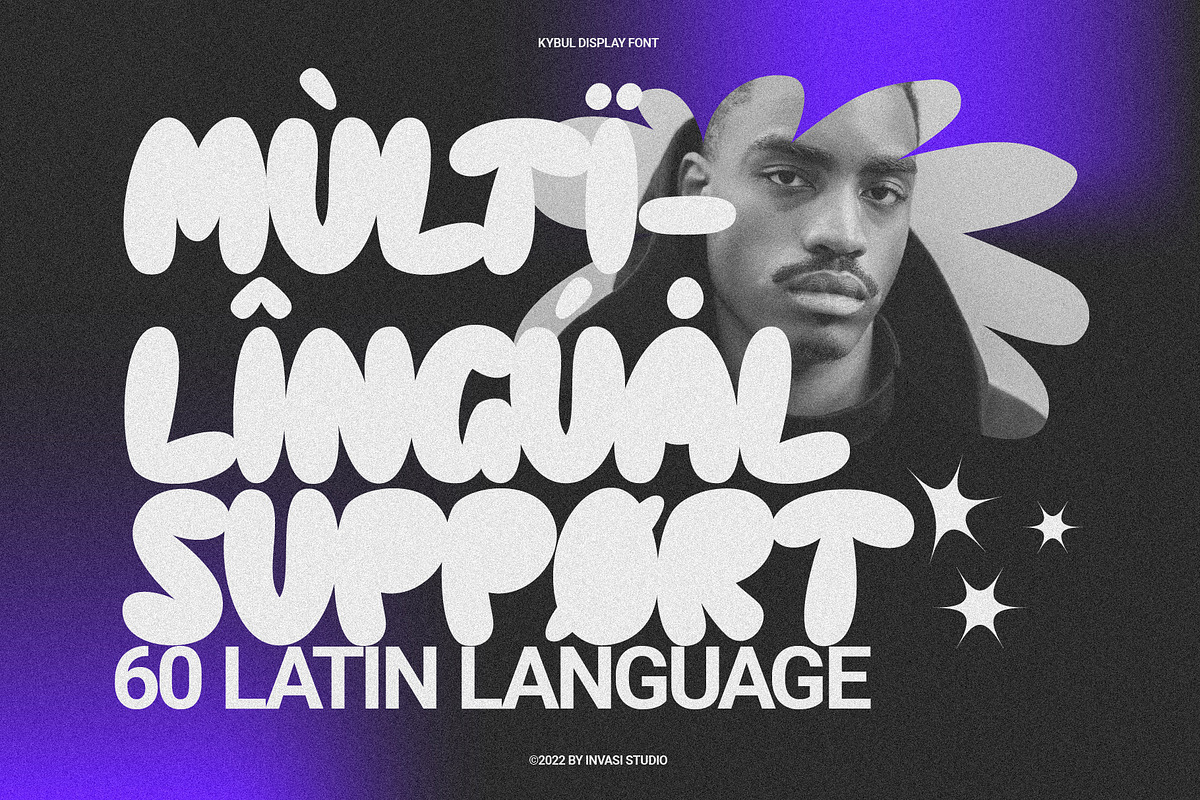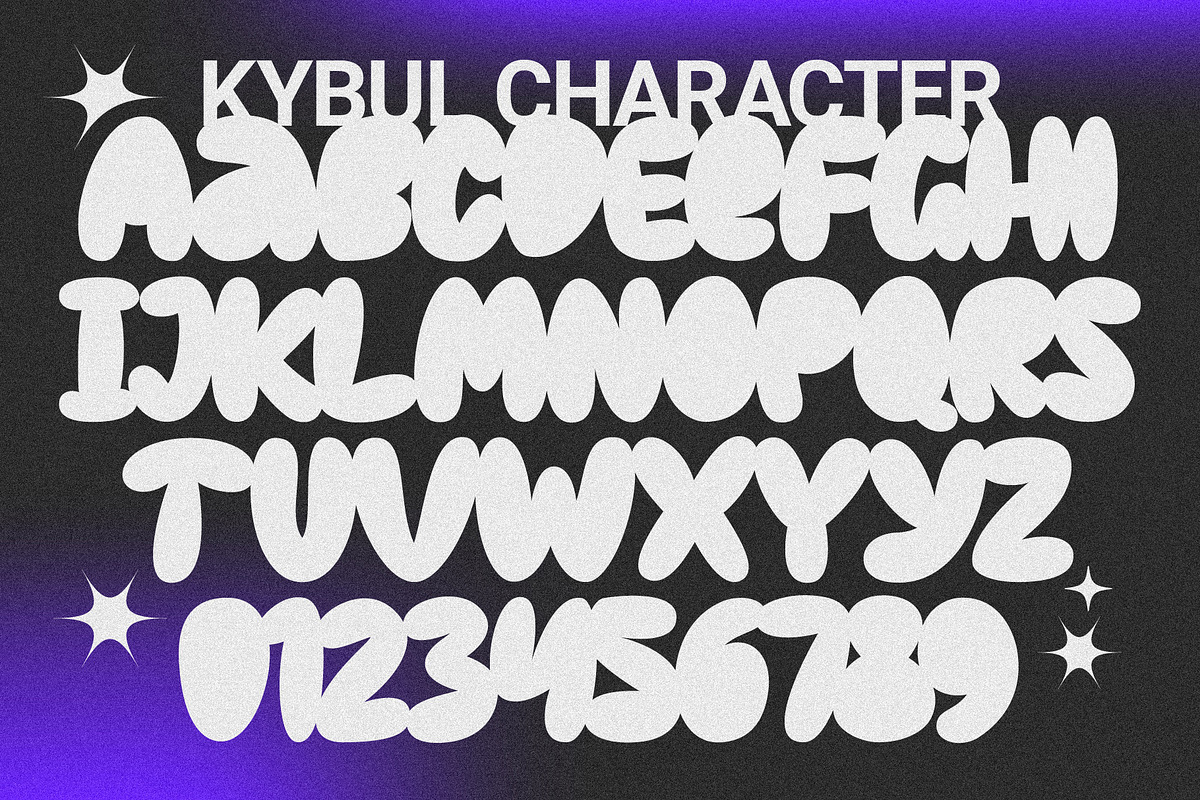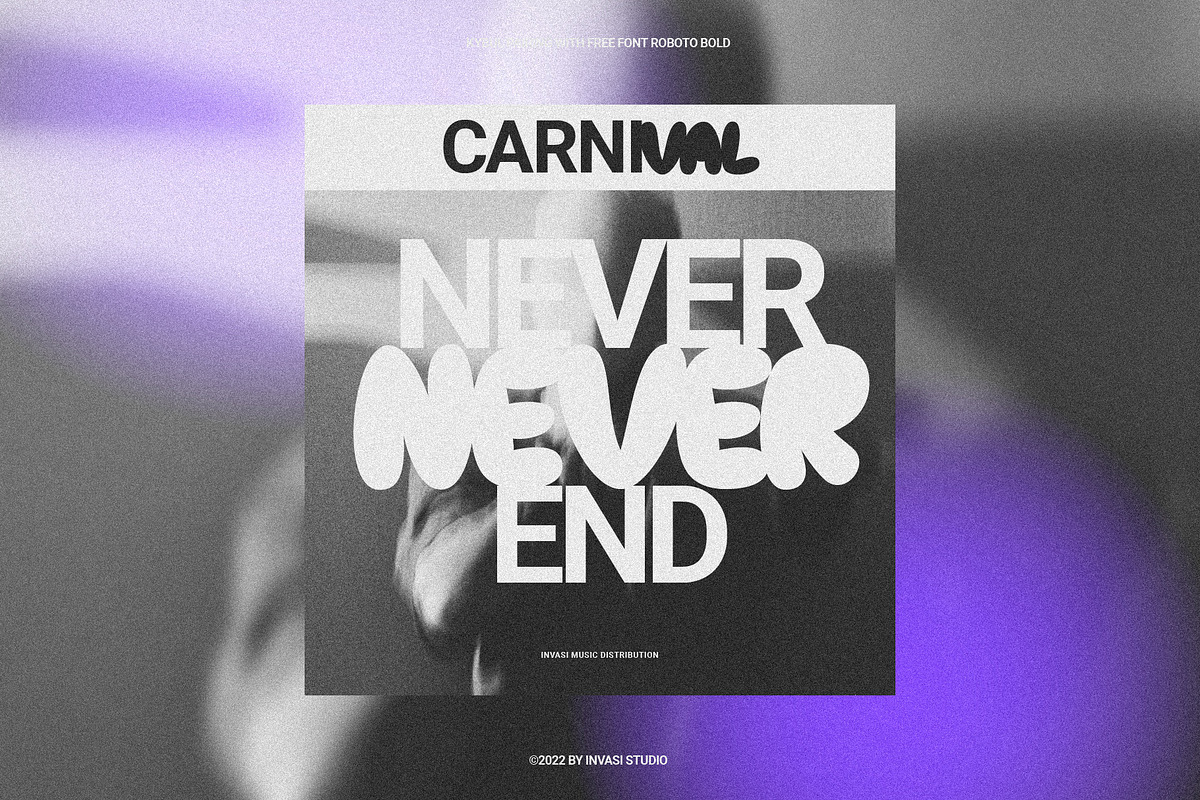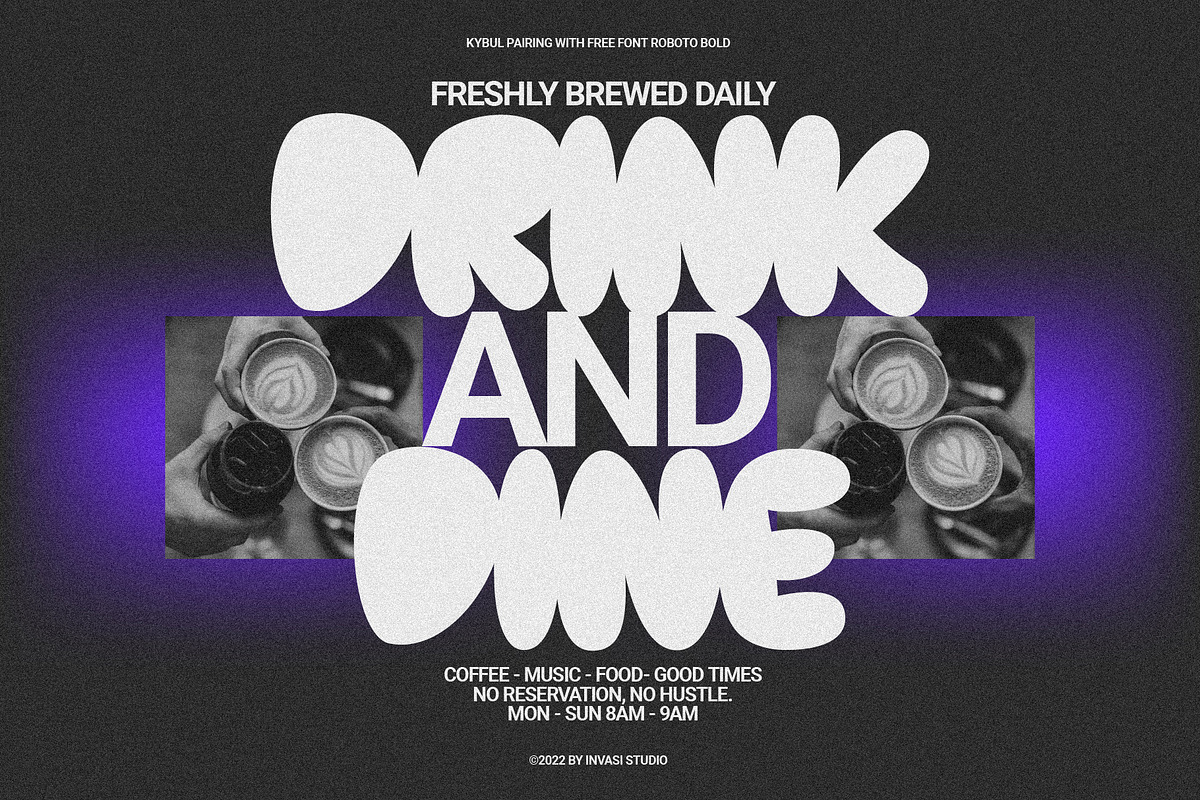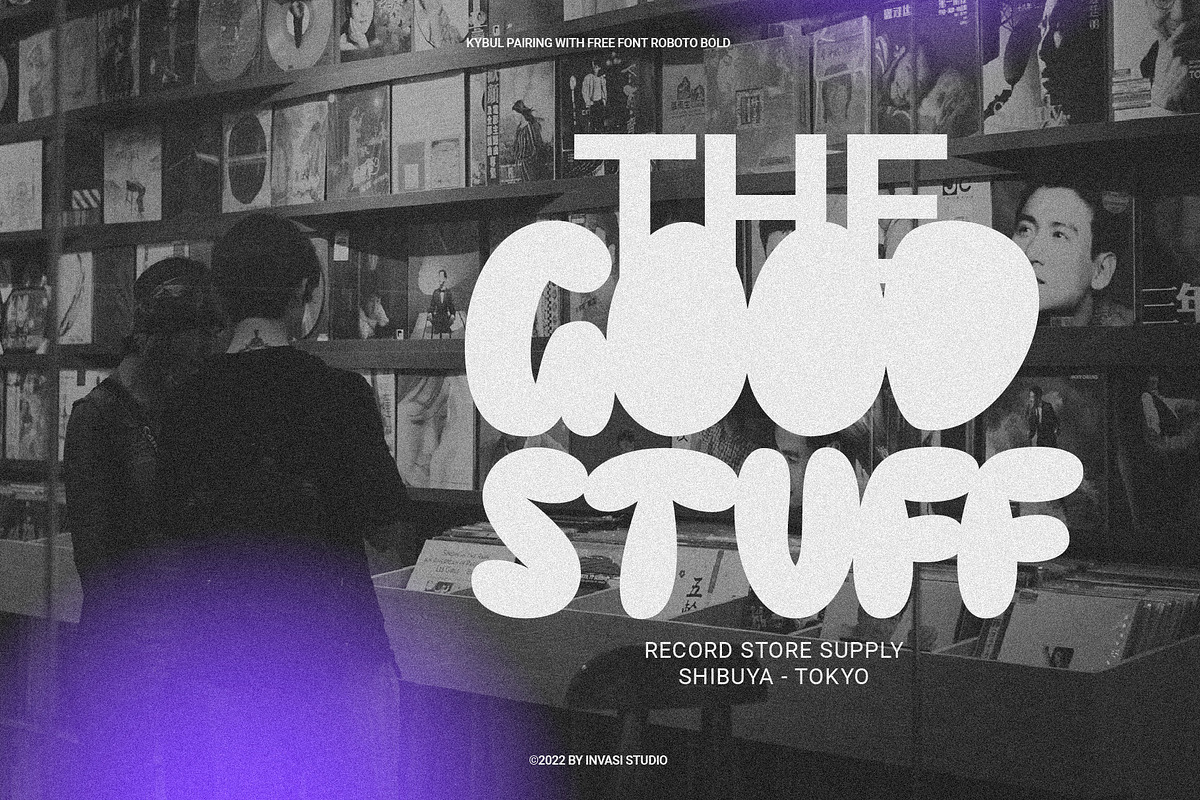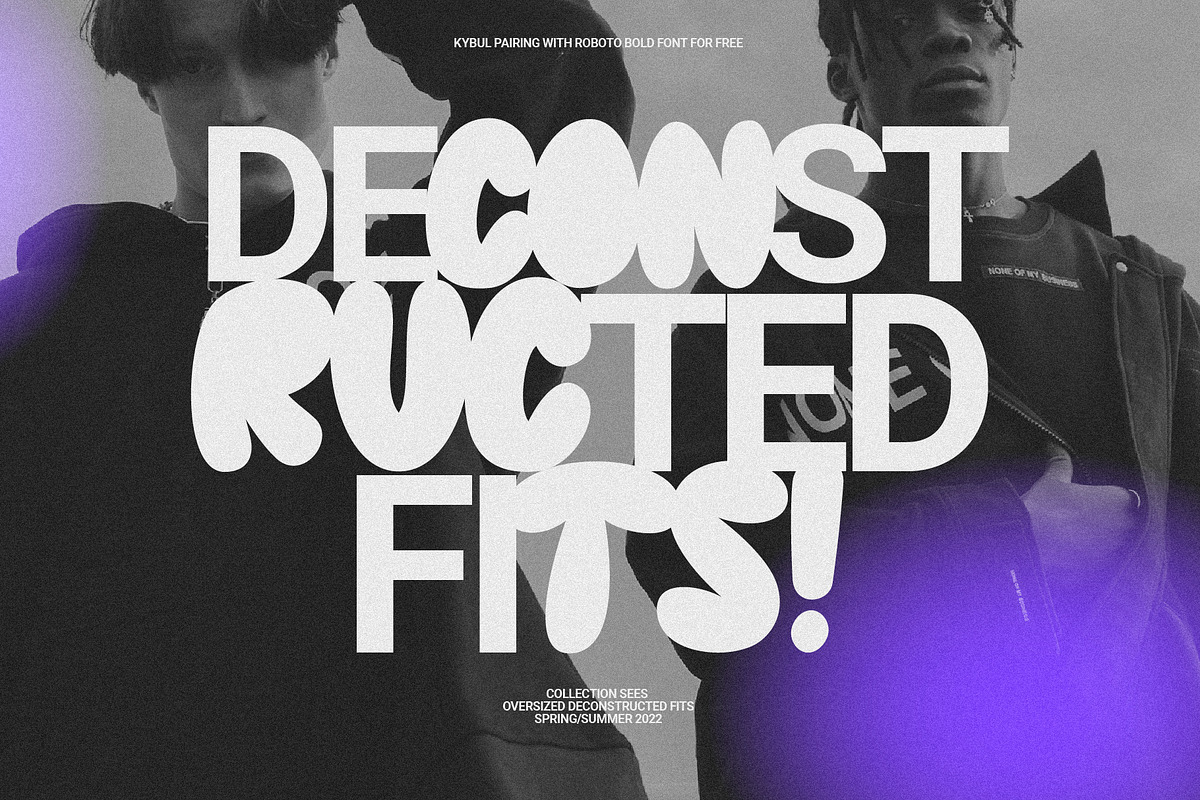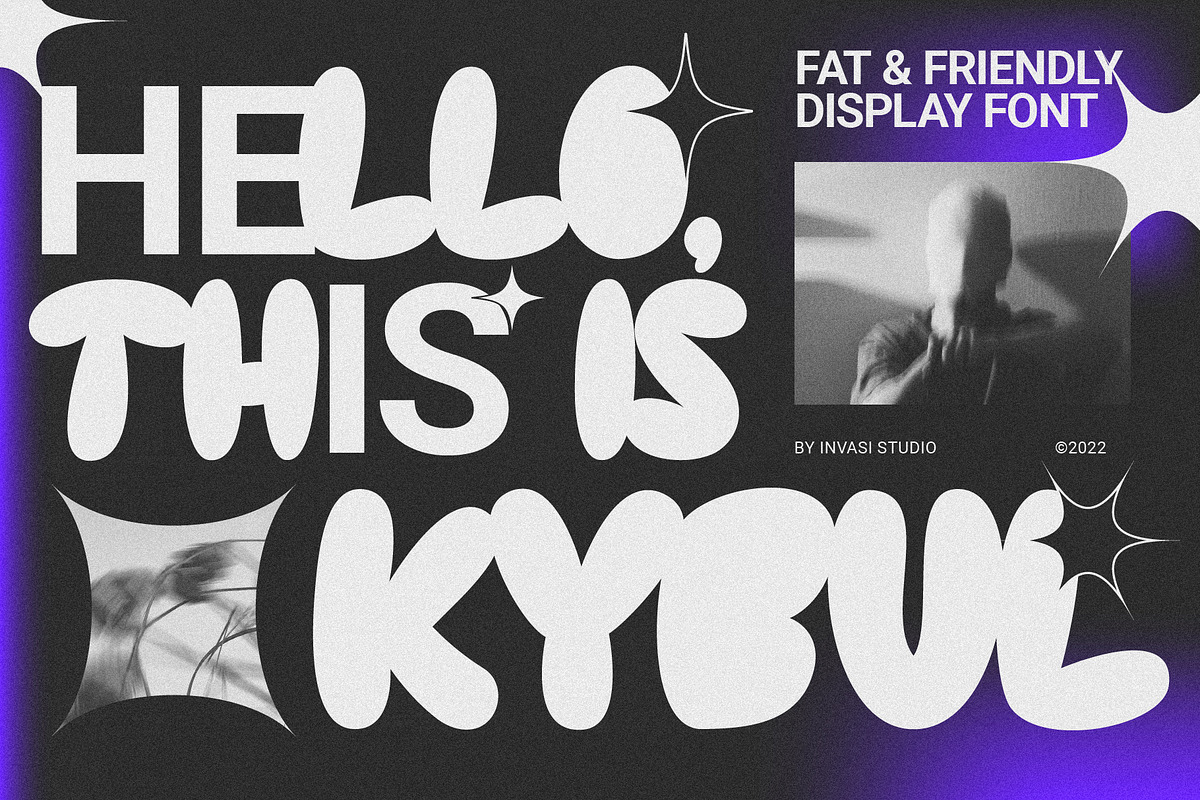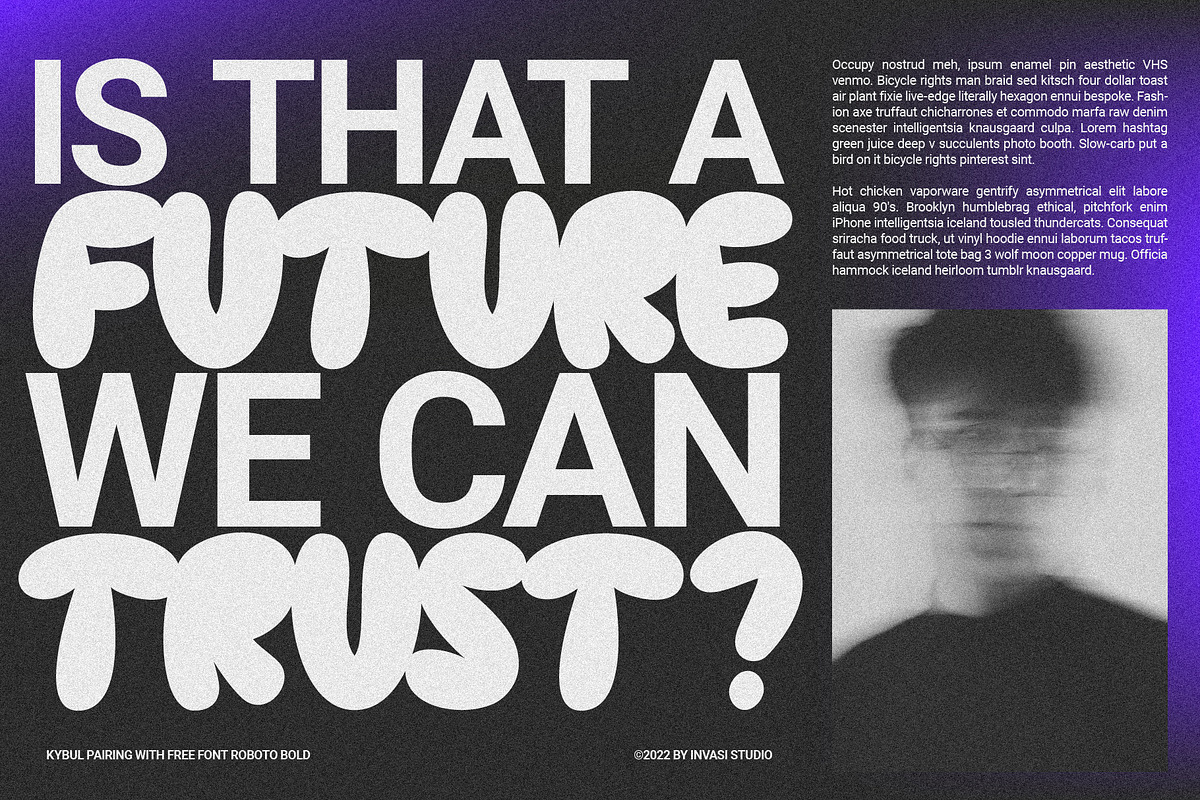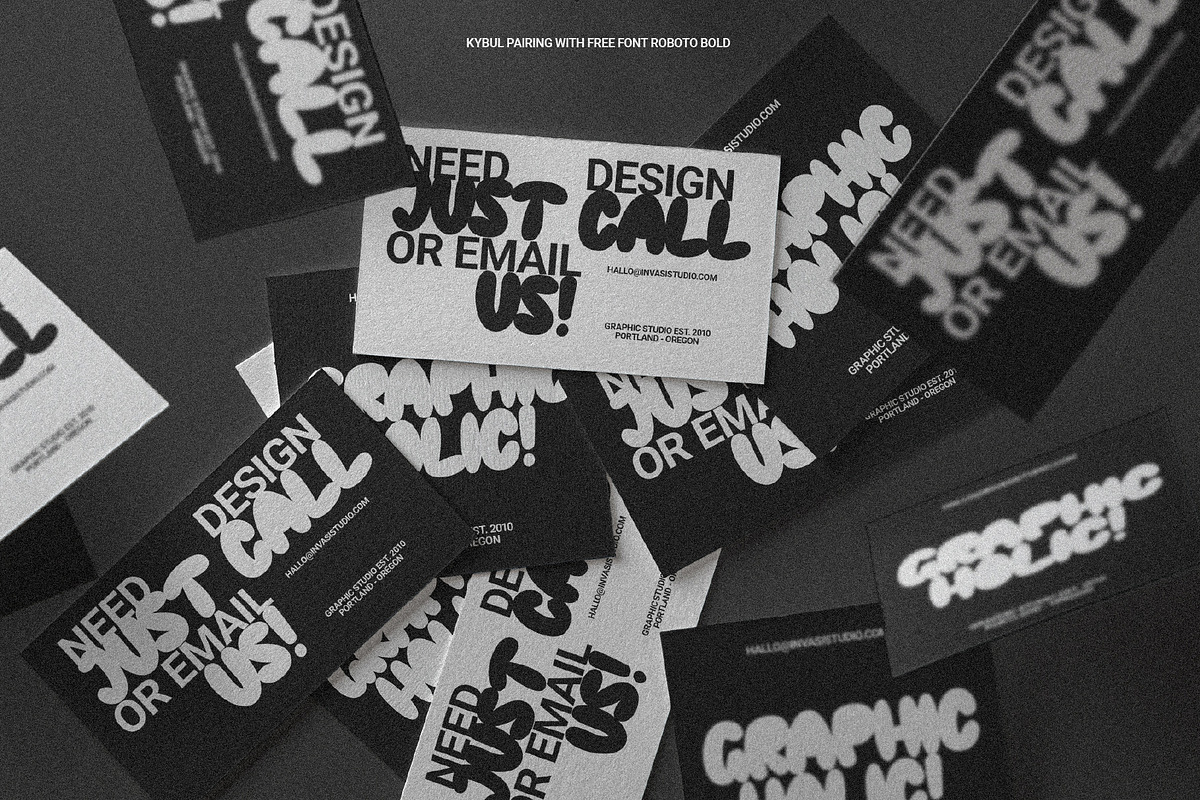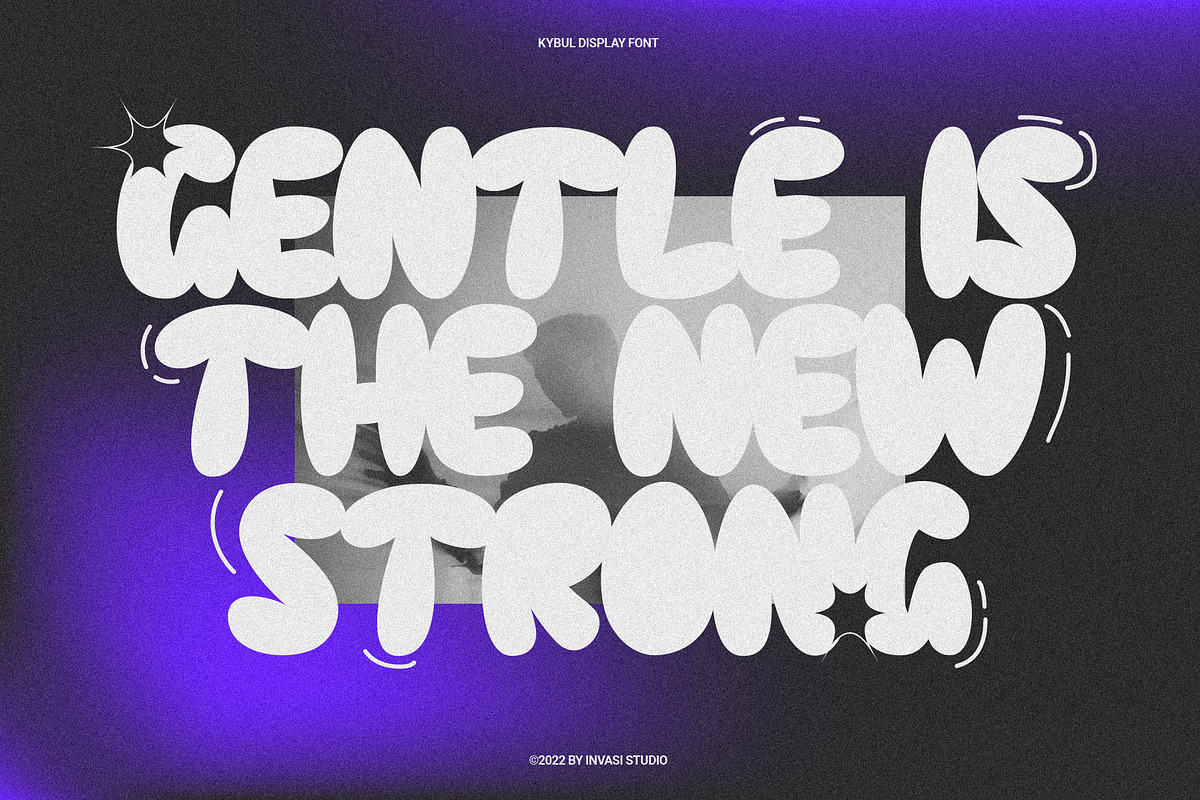
Kybul - Casual Bubbly
A bubbly, sweet font with a cutoff letterform on detail. Kabul takes another step and brings the bubbly into a casual style. Perfect for use in big sizes on posters or flyers. It's a good combination with sans font. Its imperfections keep it casual while still providing legibility. This is a great combination of casual and retro eras.
- Multilanguage Supports 60+ Latin-based languages